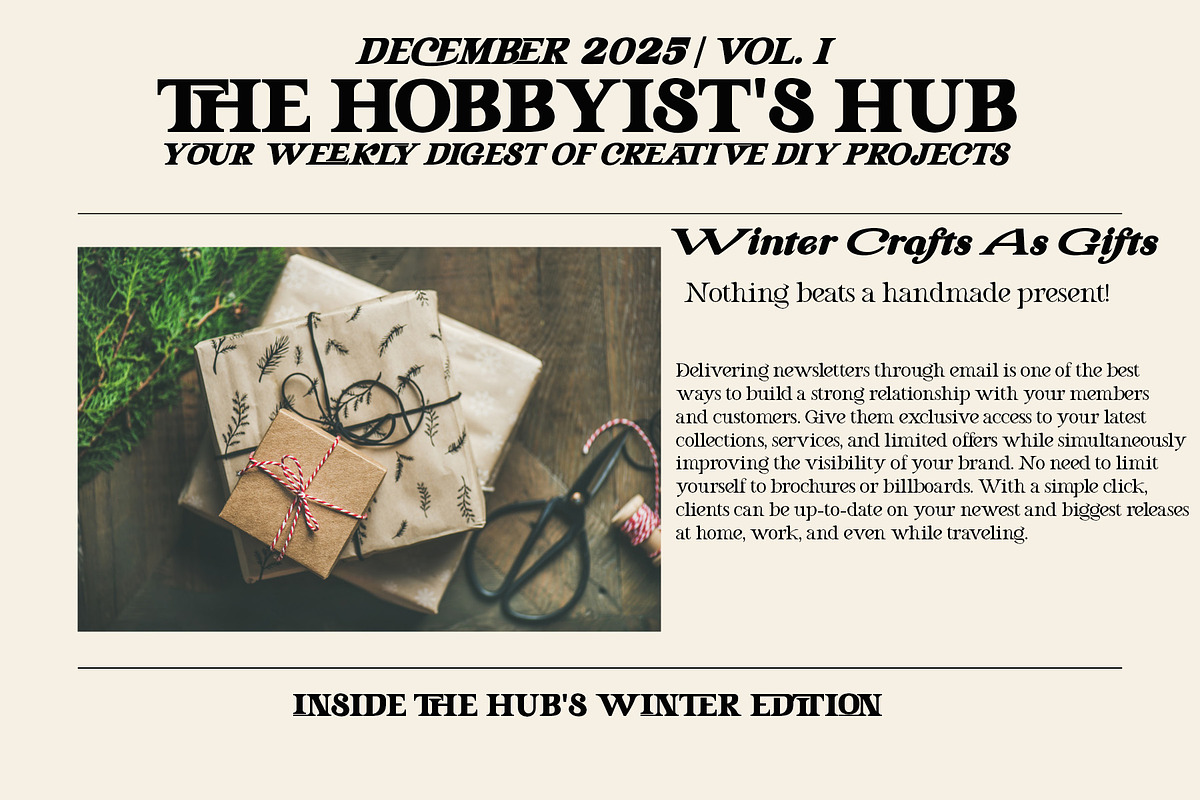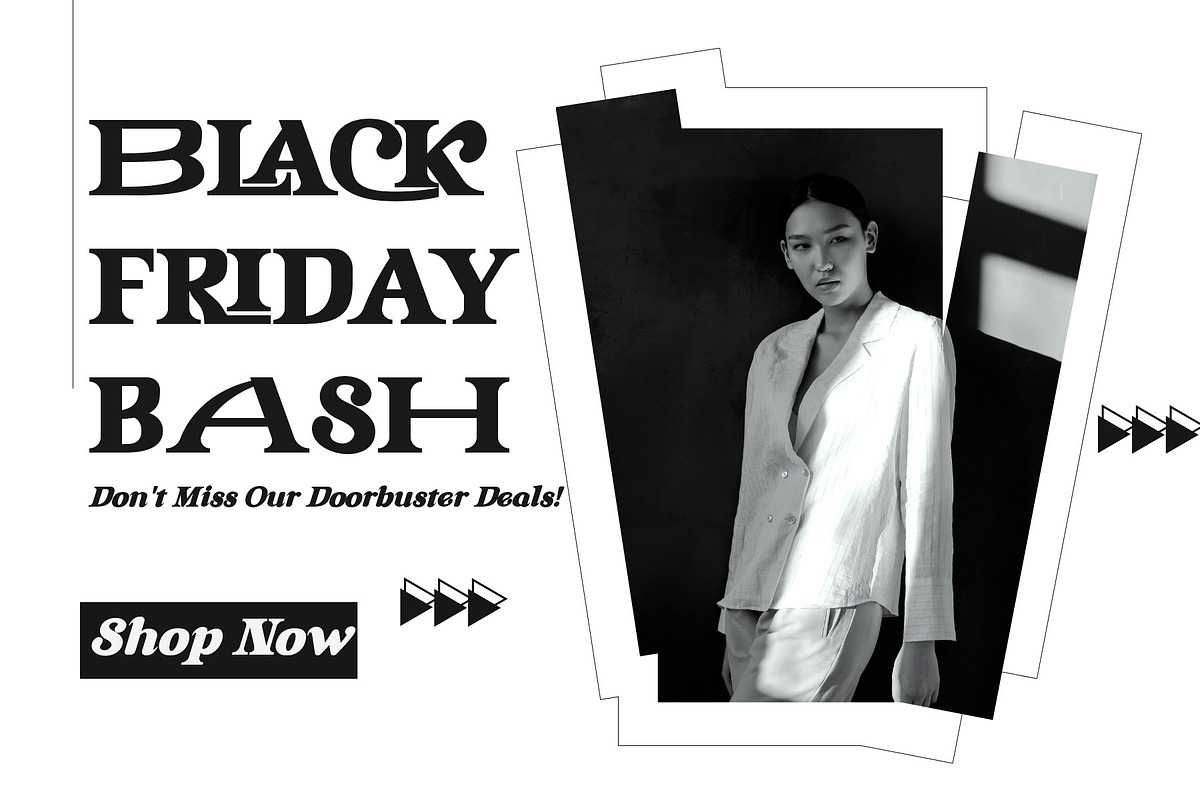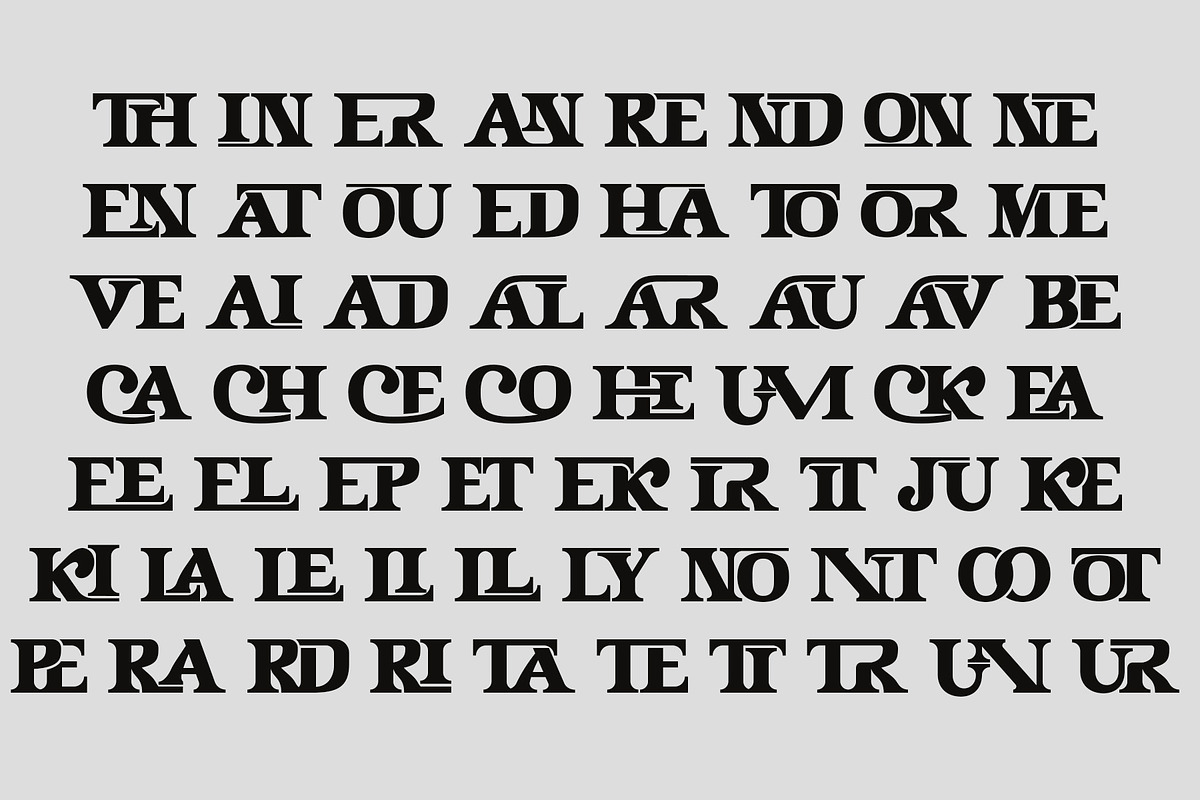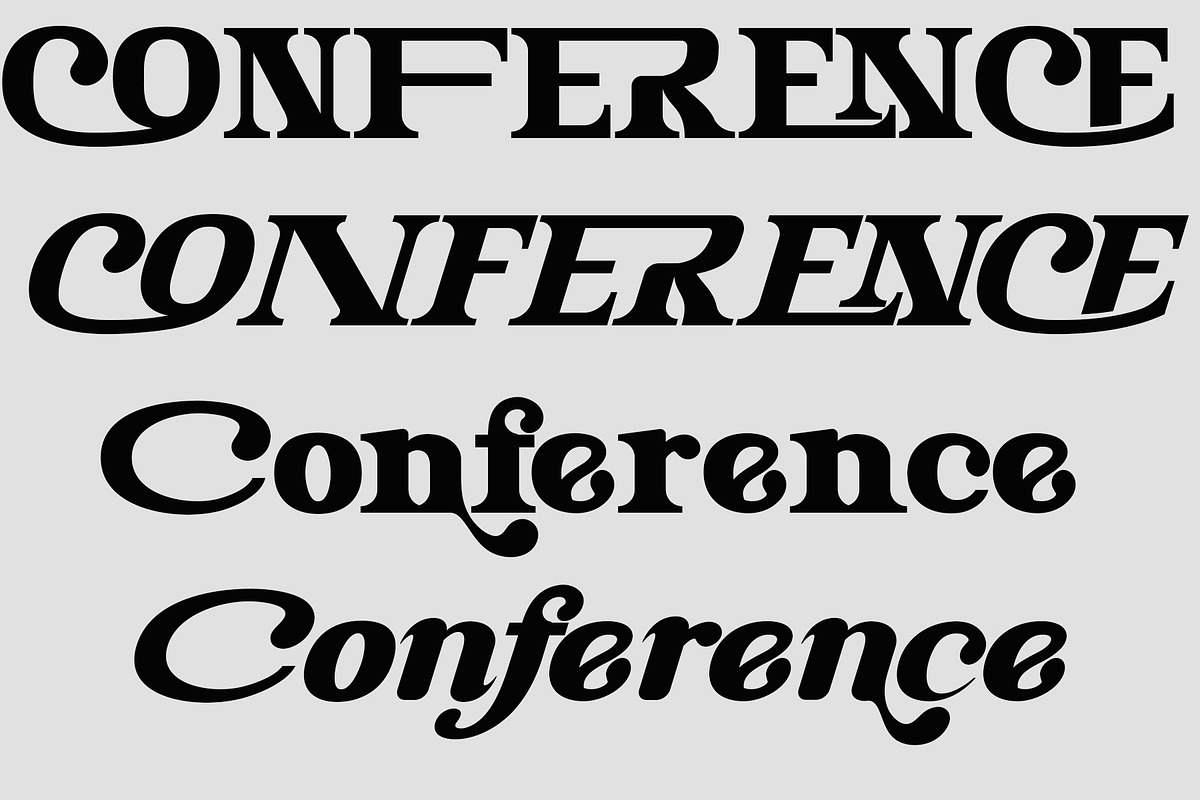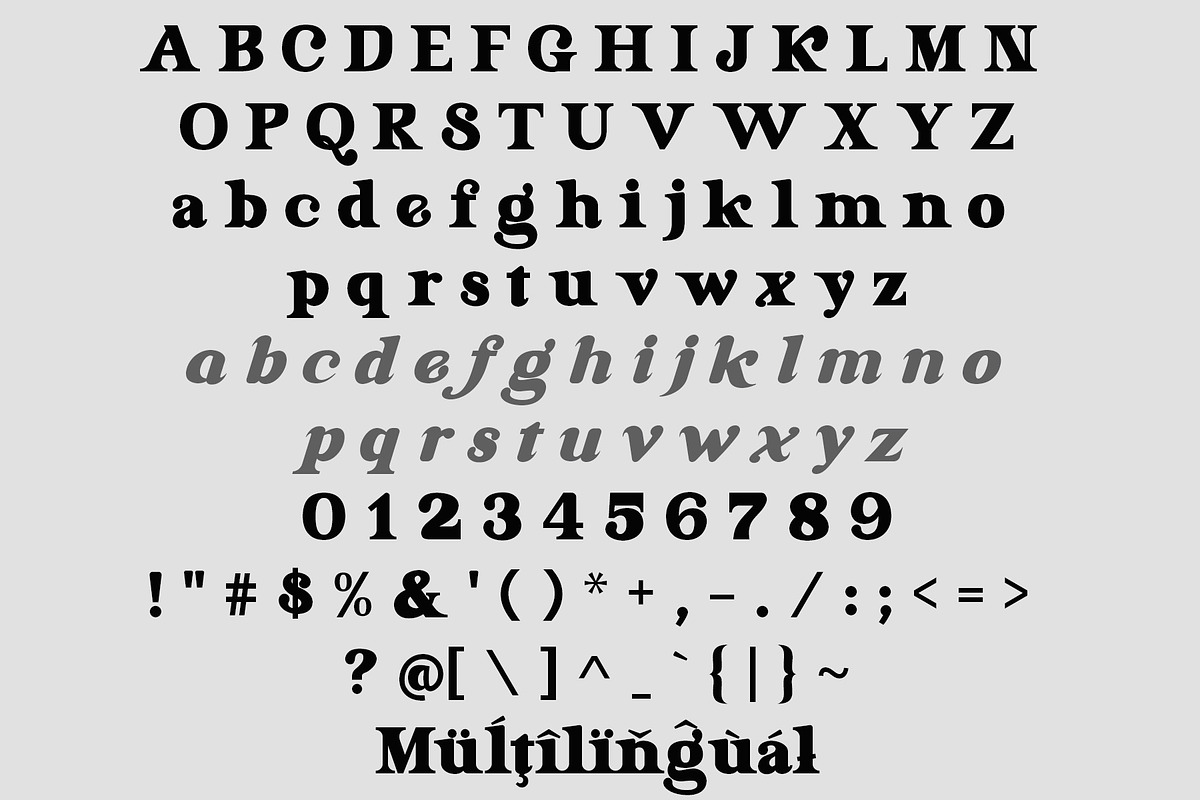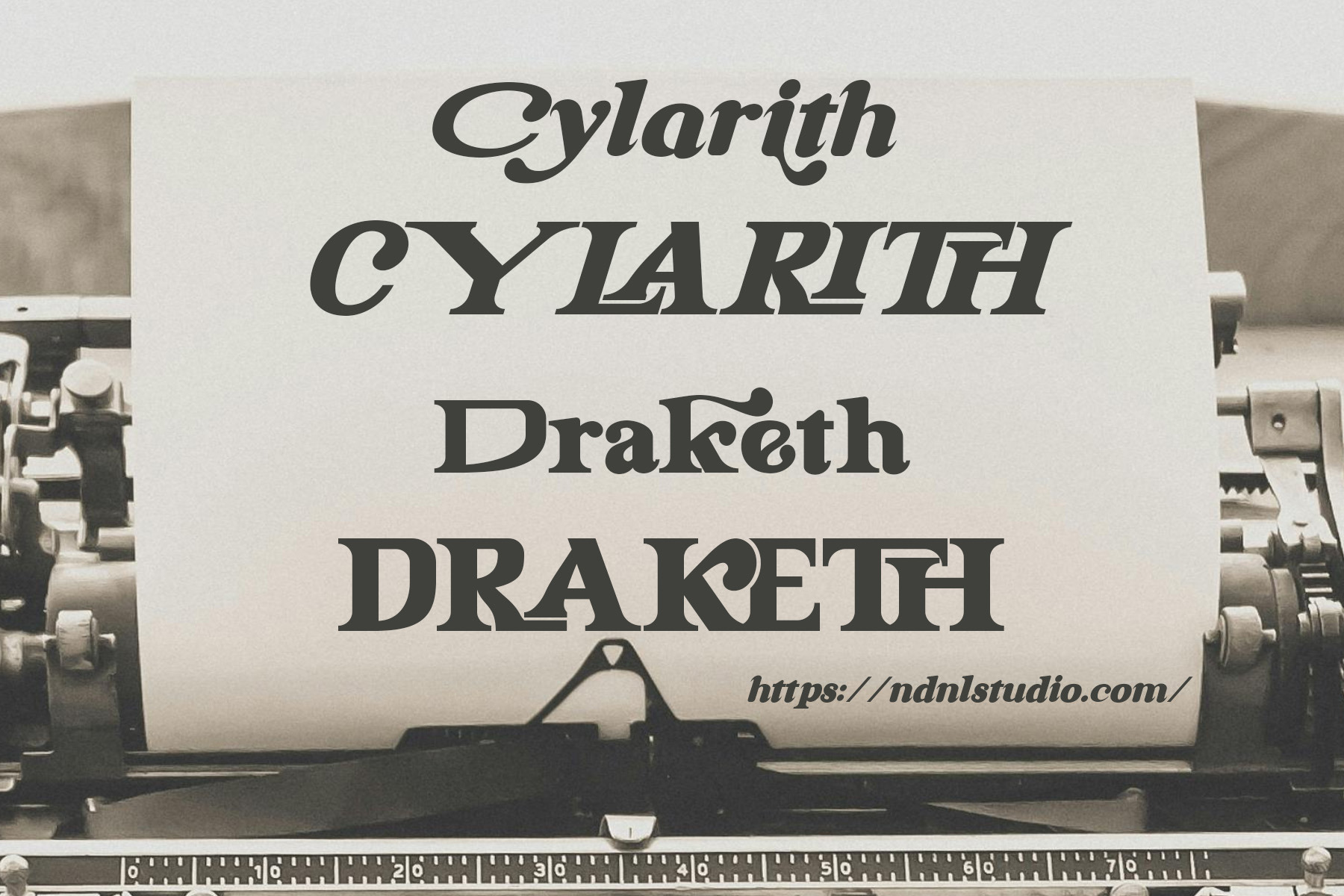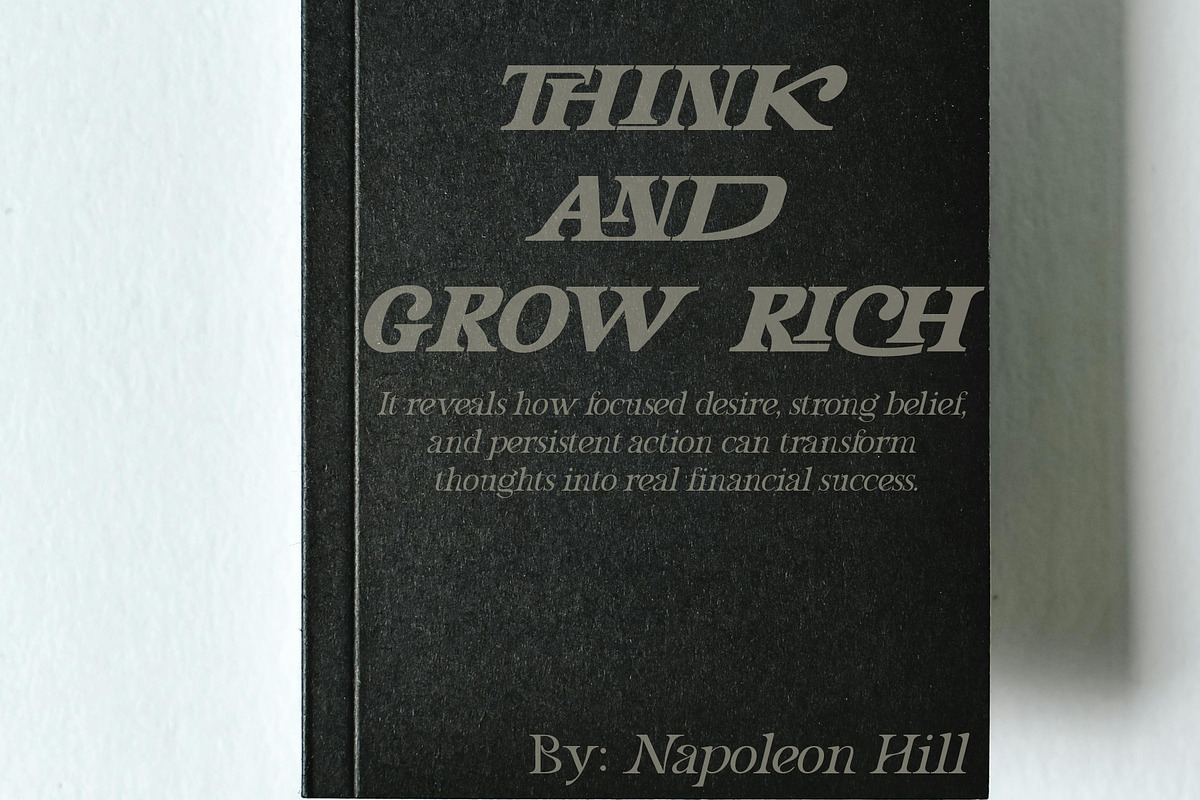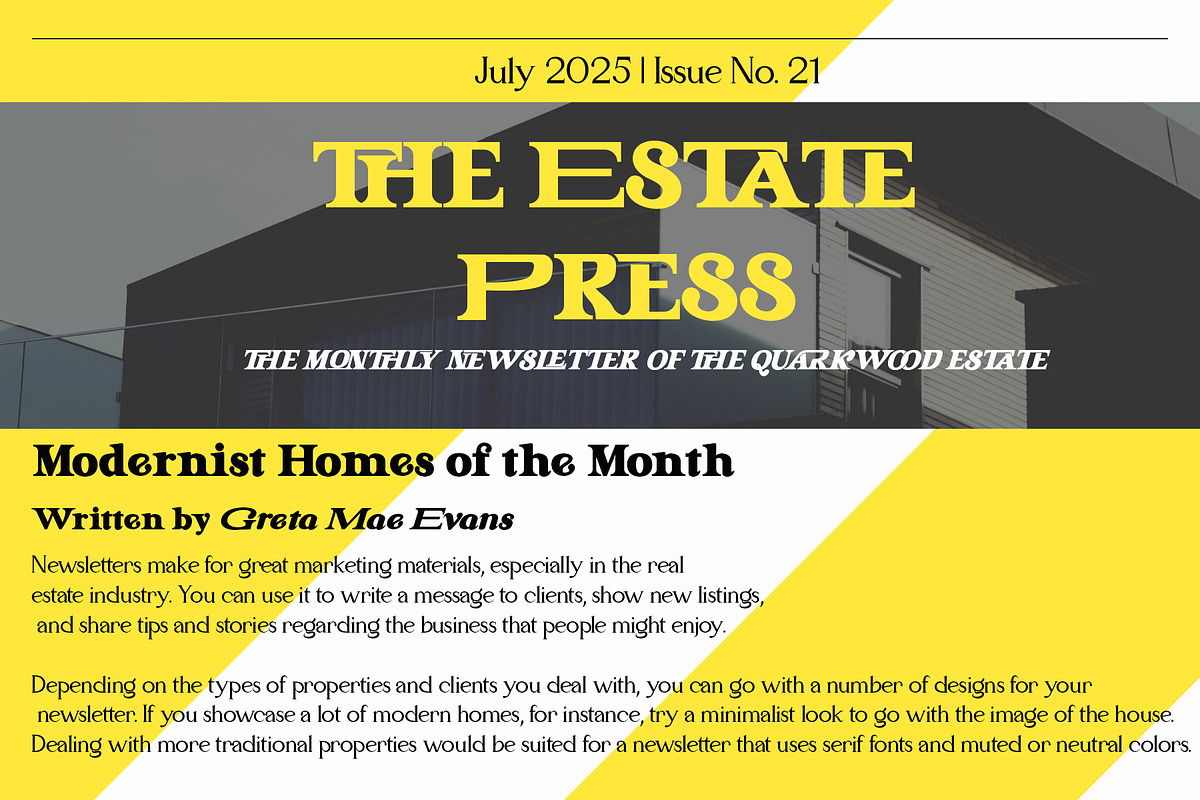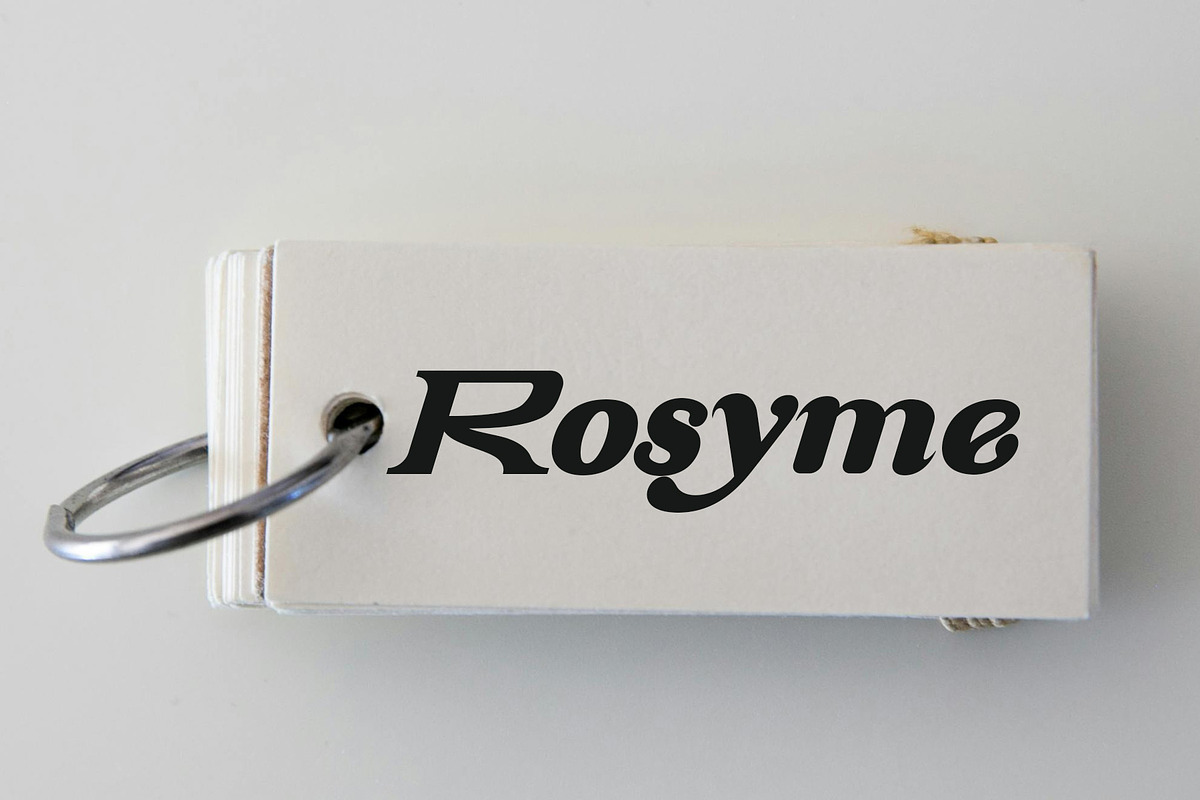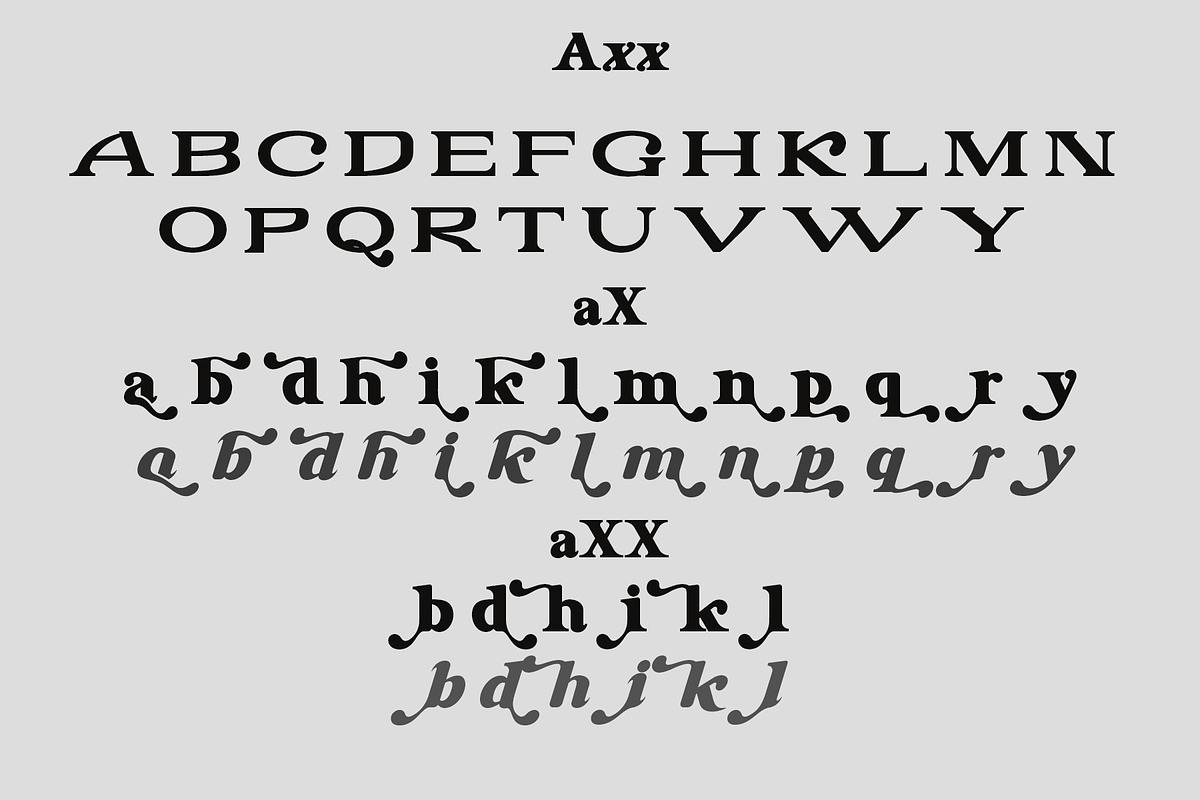
Cylarith Draketh – Serif Font
Introducing Cylarith Draketh!
Cylarith Draketh Font is a powerful serif display typeface featuring a classic form blended with a subtle mystical touch. Its sharp details, bold serifs, and strong letter structure make it exceptionally eye-catching in any design setting. Ideal for titles, posters, book covers, logos, branding, and vintage-inspired projects, Cylarith Draketh delivers a commanding and elegant look. It’s the perfect typeface for designers seeking a striking, timeless, and impactful style.
Examples:
- Axx → Decorative A (if available)
- aX → Decorative a (if available)
And also:
- AxX → Decorative A2 (if available)
- aXX → Decorative a2 (if available)
- aXXX → Decorative a3 (if available)
To separate ligatures: Insert the shortcut xXx between two characters.
- ab → axXxb → a b